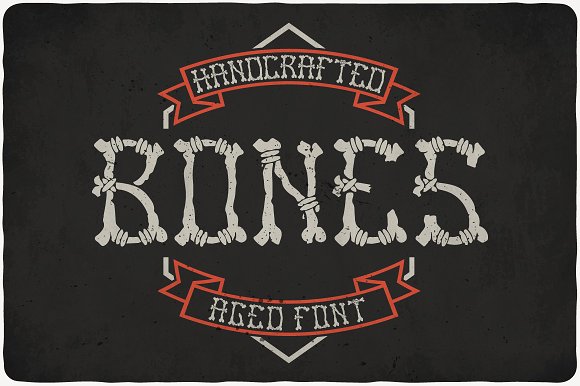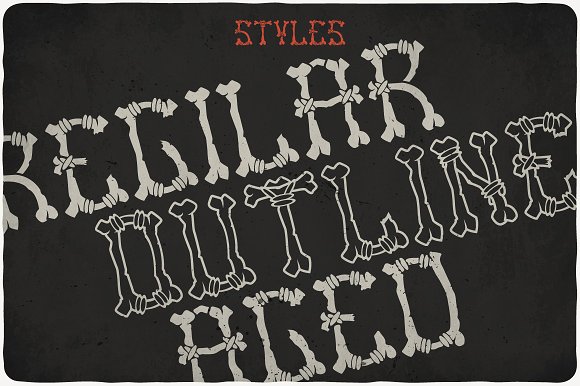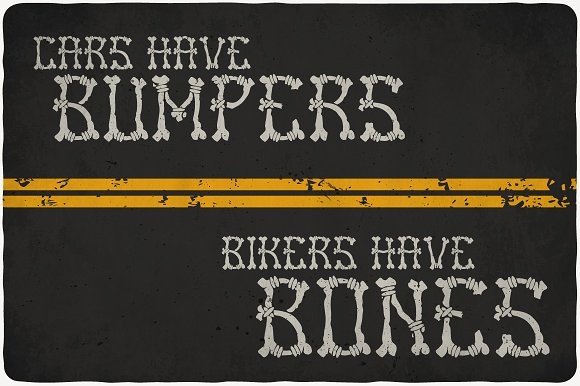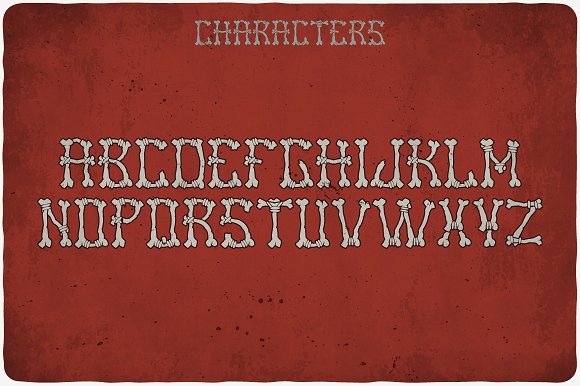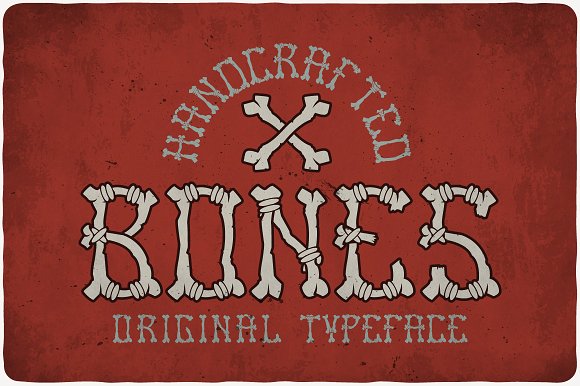
Bones Typeface
Introducing a original look label typeface named “Bones”. It’s made in scary and Halloween style 🙂 Typeface is good viewed on any your design.